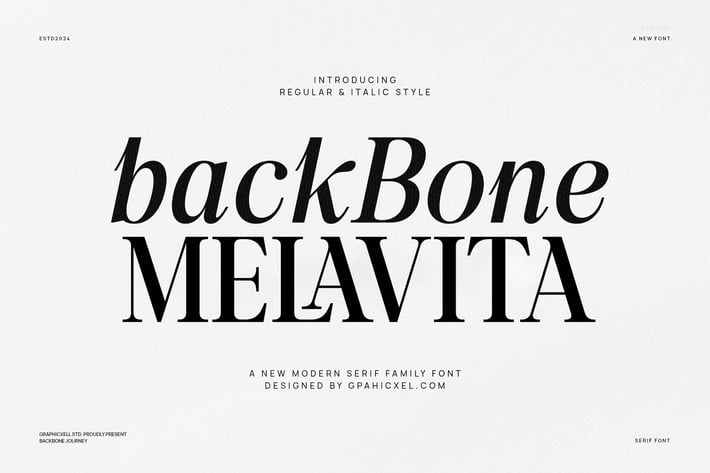
Back Bone Melavita Family is a bold and elegant serif font collection designed to make your text stand out. This font combines strong, clean lines with classic serif features, offering a perfect mix of power and sophistication. Because of this, it is ideal for a variety of design projects, including branding, editorial layouts, and packaging.
First, this font family includes multiple weights, allowing you to create a balanced and flexible design. Whether you need a bold headline or a smooth body text, Back Bone Melavita adapts well. Furthermore, its clear letter shapes and well-defined serifs improve readability across both print and digital media.
In addition, Back Bone Melavita is versatile and easy to use. It fits perfectly for logos, magazines, websites, and product packaging. The font’s sharp edges add confidence and professionalism to your work. Also, its classic style with a modern twist makes it suitable for many industries, from fashion to corporate design.
Here are the main features and uses of Back Bone Melavita Family:
- Strong serif style with clean lines
- Multiple weights for flexible design options
- Perfect for branding, editorial, and packaging
- Clear and readable for print and digital projects
- Elegant yet bold appearance to enhance your message
Moreover, this font family helps you deliver your message with style and clarity. It balances tradition and modern design, which makes your work both timeless and fresh. Also, its versatility means it can easily fit many creative needs.
In summary, Back Bone Melavita Family is a reliable serif font family that combines boldness with elegance. It supports diverse design projects while ensuring readability and style. With its range of weights and sharp design, this font family is a smart choice for any designer.